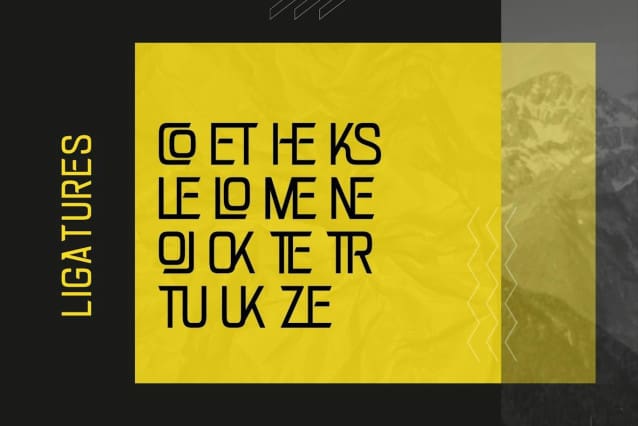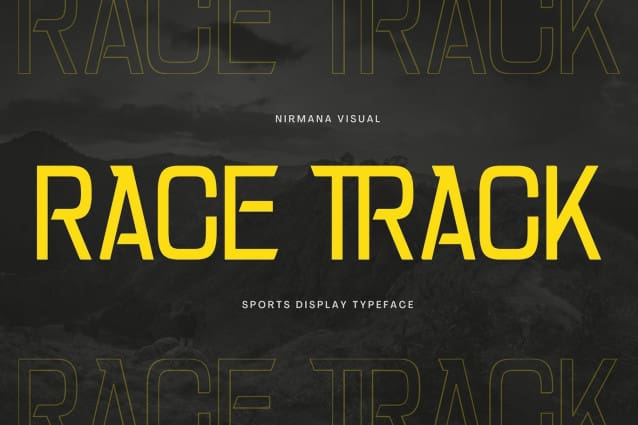
Race Track Font
Race Track Font – Robust and sporty sports display. Ideal for title, logo, typography, apparel, magazines, brochures, packaging and much more for your design needs, making your designs more modern and professional.